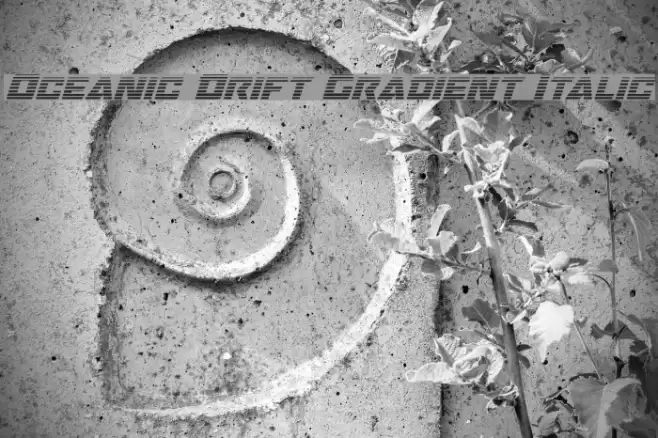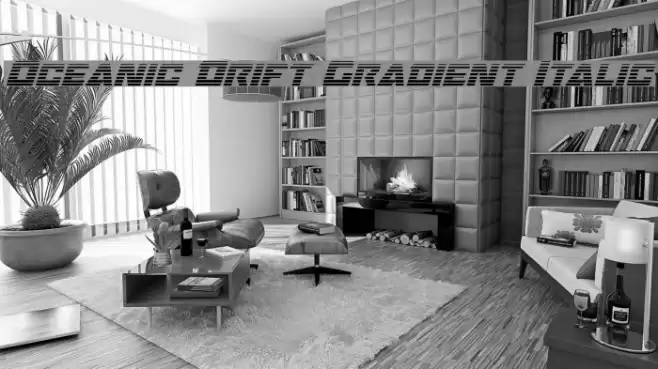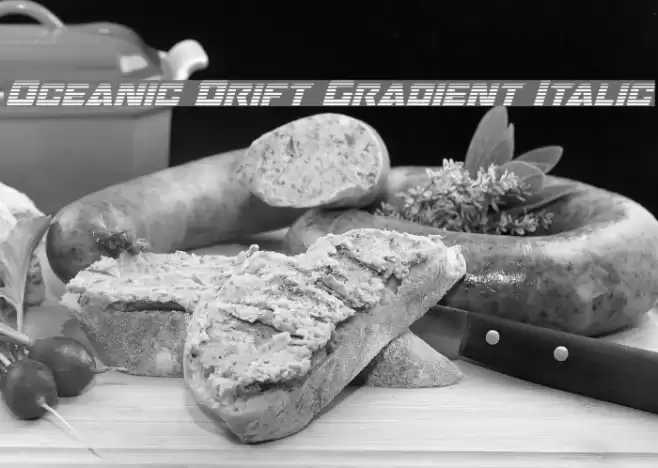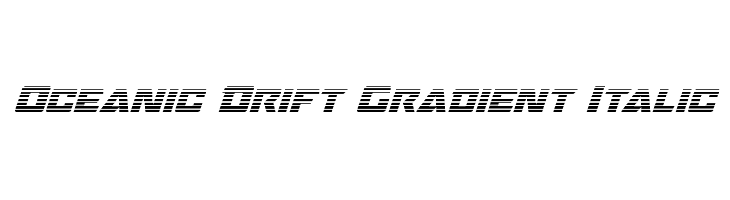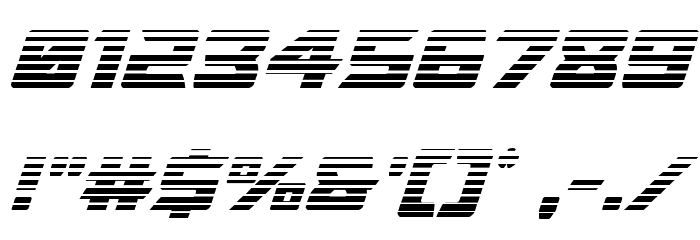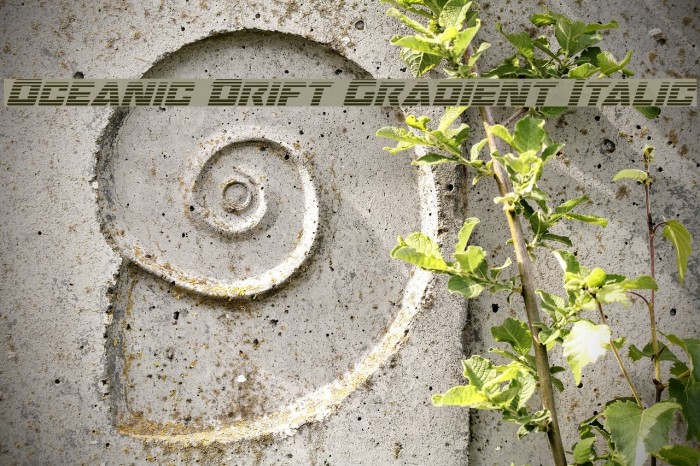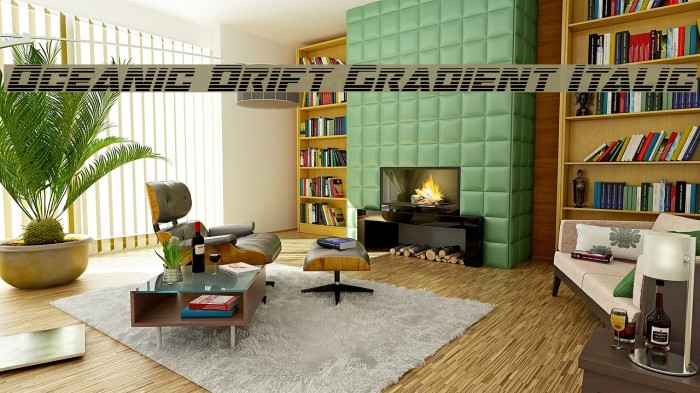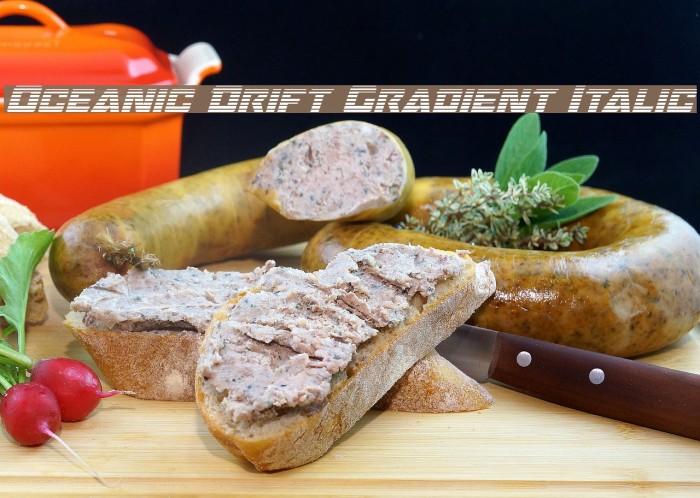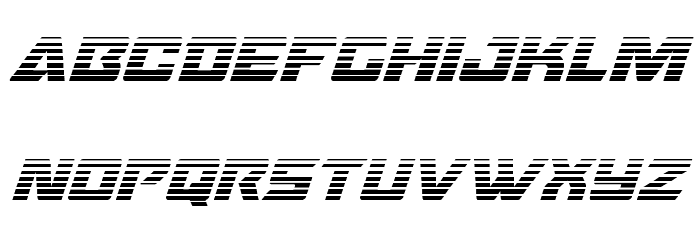
Oceanic Drift Gradient Italic Font
Oceanic Drift Gradient Italic Description
This font features a dynamic and modern design with a distinct italic slant, creating a sense of motion and speed. The characters are composed of horizontal lines that give a gradient-like effect, enhancing the futuristic and digital aesthetic. The uppercase and lowercase letters maintain a consistent style, with sharp angles and a bold presence. The numerals and special characters follow the same design principles, ensuring uniformity across all elements. This font is ideal for projects that require a contemporary and energetic look.
A modern, italic font with a gradient-like, dynamic design from Uncategorized fonts.
- Proposed Projects: Ideal for tech branding, sports team logos, futuristic posters, and digital media.